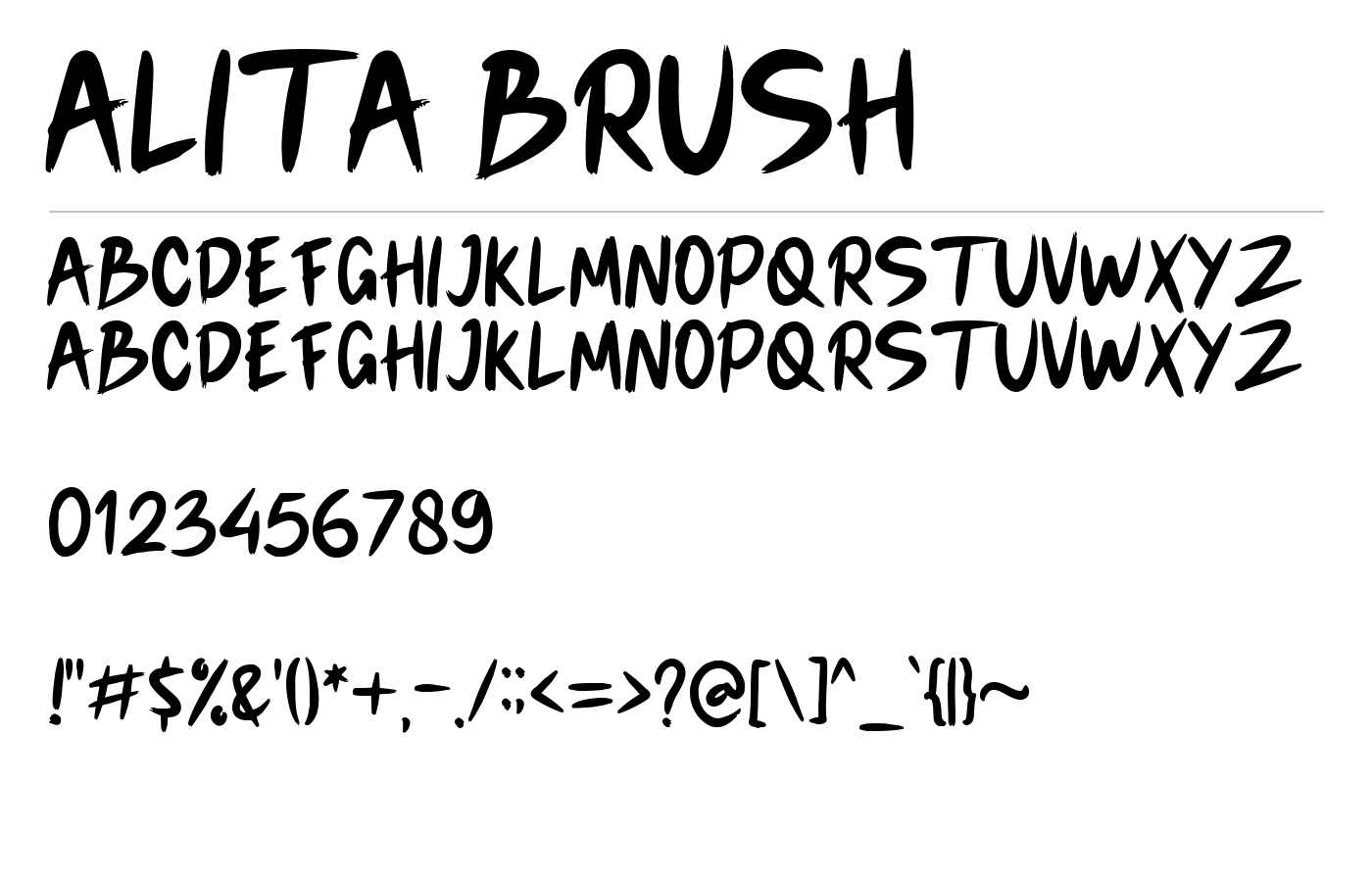
Alita Brush is a bold, casual brush script font with a lively, hand-painted feel. Its uneven strokes and slightly rough edges give it an energetic, informal personality that works beautifully for creative projects, branding, and headlines that want to convey a fun, approachable vibe. This font shines in designs needing a personal touch, such as posters, logos, and packaging with a youthful, artistic flair.
Alita Brush Font
About Alita Brush Font
| Font family | Alita Brush Font |
| Designer | Sugeng Riyanto a.k.a Inovatype Studio |